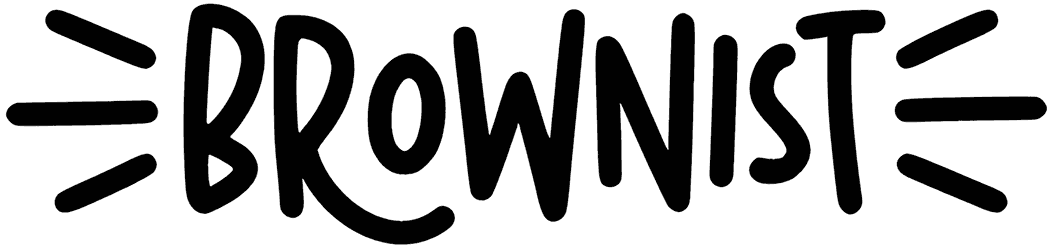
Brownist Font
When you set a casual and realistic letterform on your words, the final draft will convey a friendly vibe to your viewers. The Brownist font has a soft and minimal visual that can make your creative idea unique, even without lowercase letters. Set this soft handwritten font on your next layouts, such as a birthday party invitation card, and enjoy the feedback.
BROWNIST